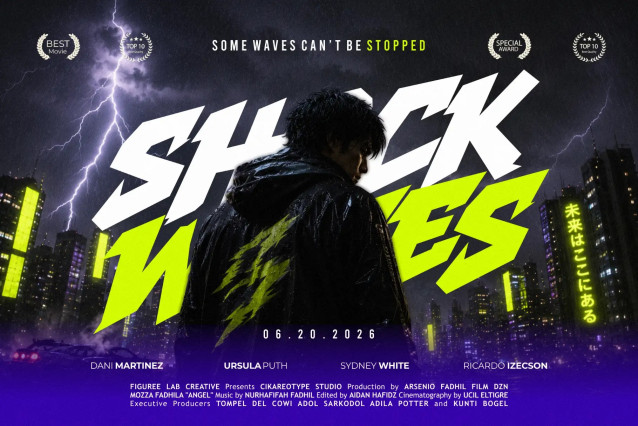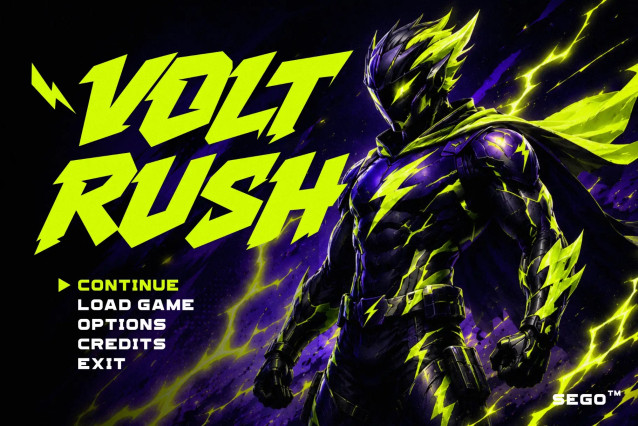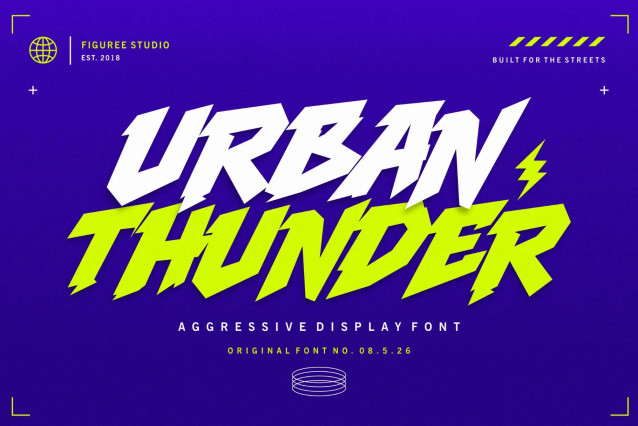
Urban Thunder Font
Urban Thunder Font is a bold, modern display font designed to capture the raw energy of street culture. Combining the structural integrity of the Akira Expanded typeface with dynamic, lightning-inspired accents, it delivers a high-impact visual experience. With its heavy weight and sharp, aggressive edges, this font is perfectly engineered for headlines that demand immediate attention